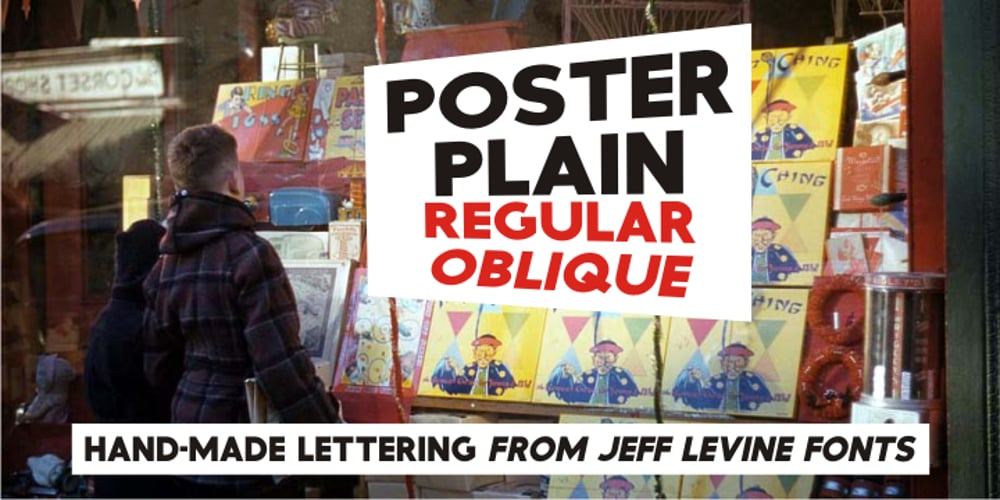
Poster Plain JNL
Poster Plain JNL font
Poster Plain JNL Font Family was designed by Jeff Levine and published by Jeff Levine. Poster Plain JNL contains 2 styles and family package options. Poster Plain JNL and its oblique counterpart offer the simple, hand-lettered look of home-made poster board projects with a bold, friendly typeface.